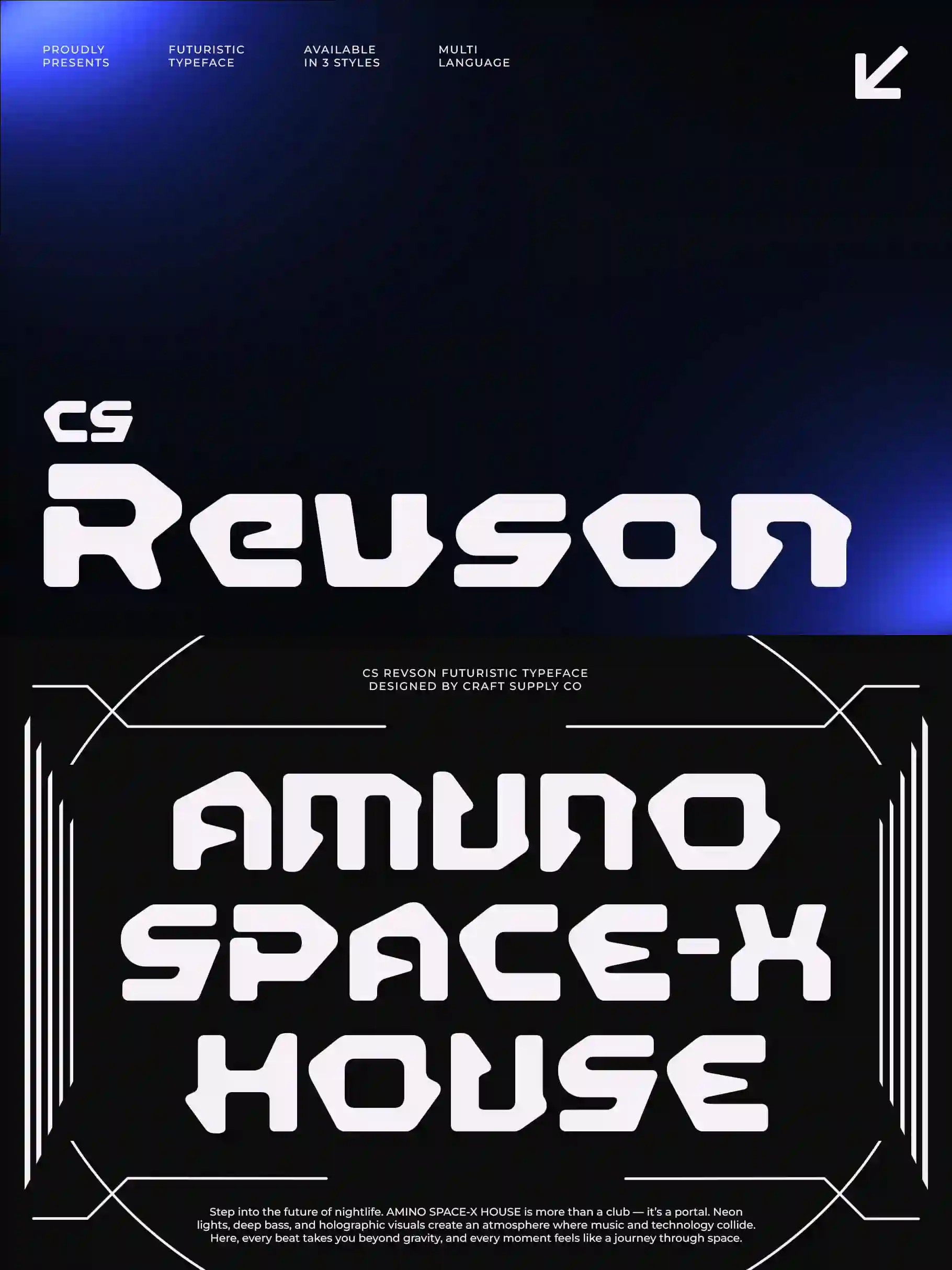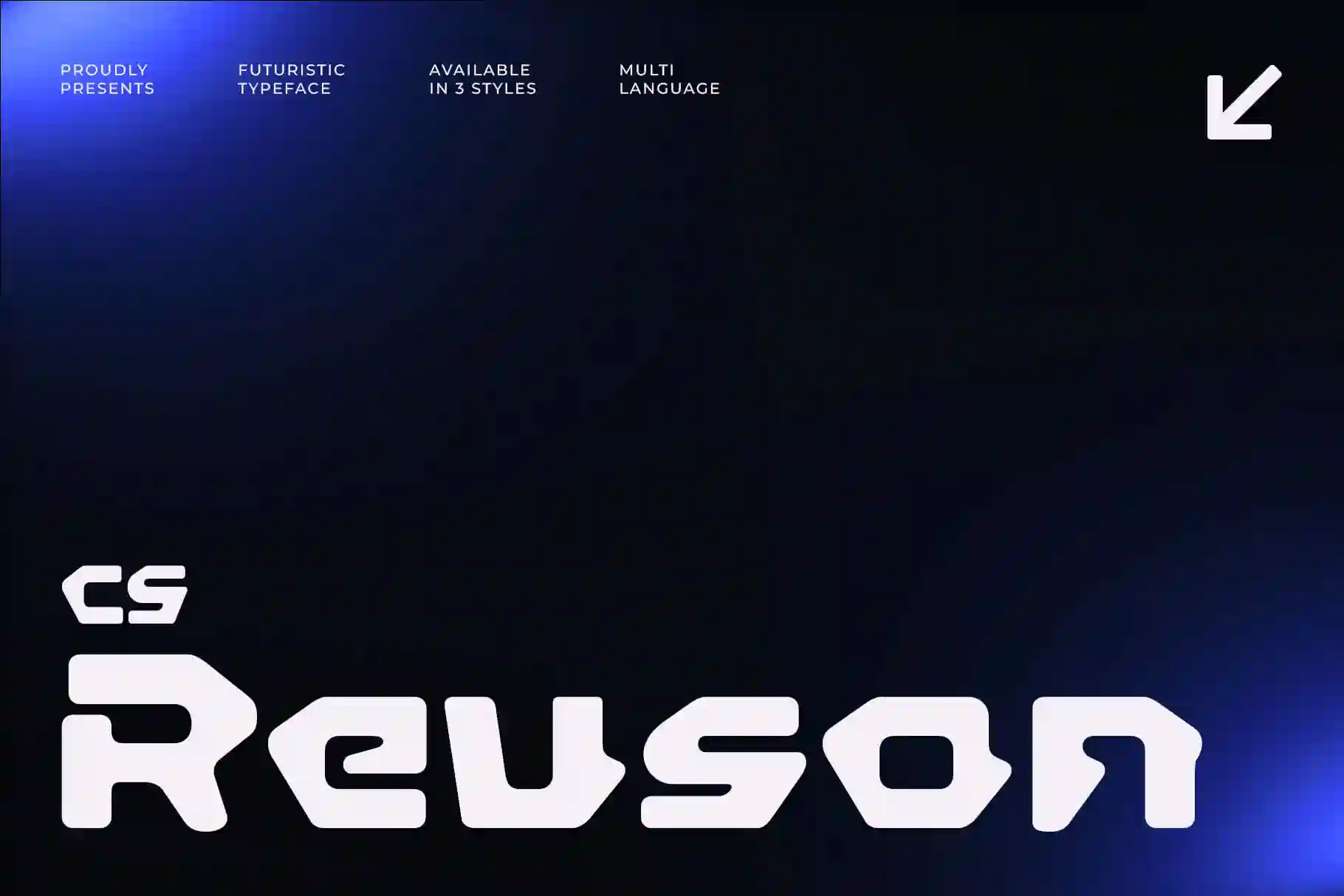
CS Revson – Futuristic Display Font with Techno Edge
Bold Display Font with Futuristic Techno Structure
Built for Bold Impact
CS Revson is a futuristic display font crafted to command attention. Its bold letterforms and structured design make it stand out in modern creative projects, ensuring your text feels strong, dynamic, and impossible to ignore. This is a typeface built for designs that need to look ahead.
Techno Structure with Modern Style
What defines CS Revson is its techno-inspired structure. Clean lines, sharp edges, and futuristic geometry give it a distinctly modern edge, making it the ideal choice for sci-fi, technology-driven, or dystopian themes. It balances readability with a striking visual presence, ensuring your typography is both functional and powerful.